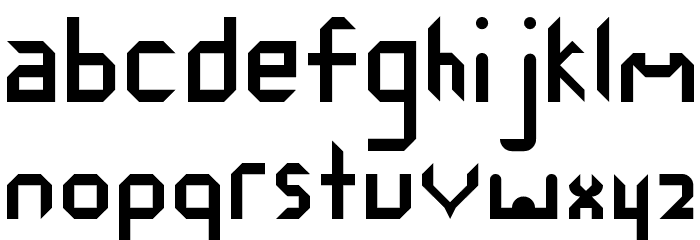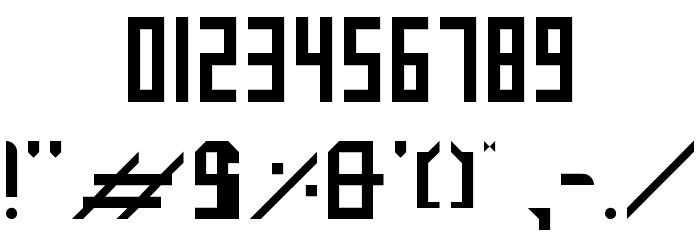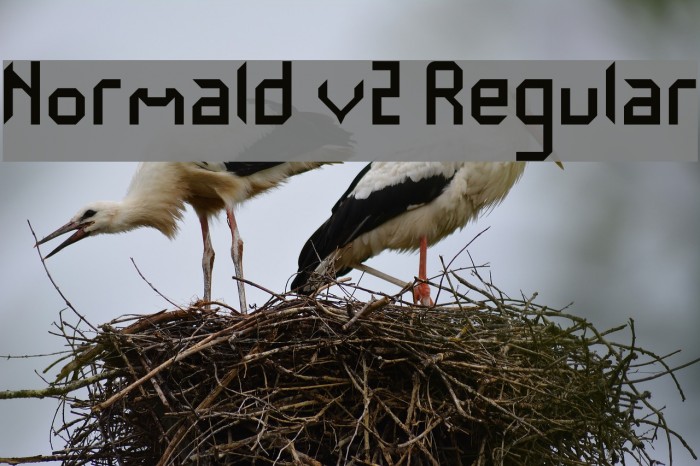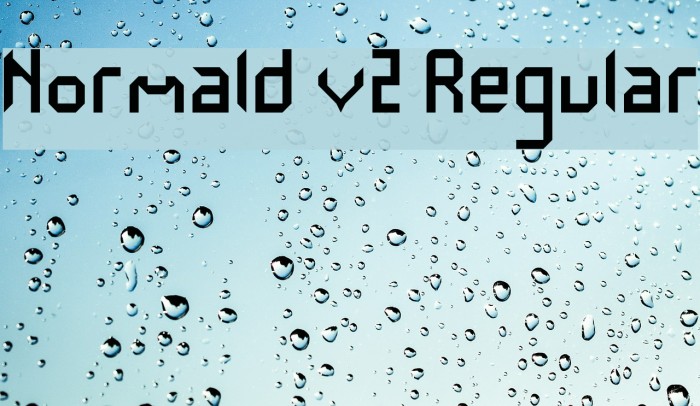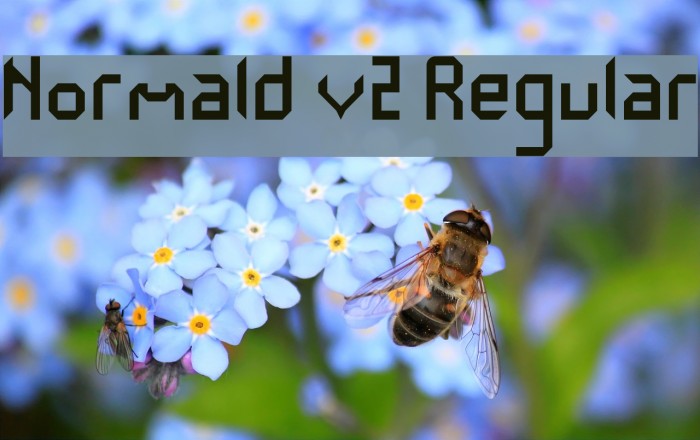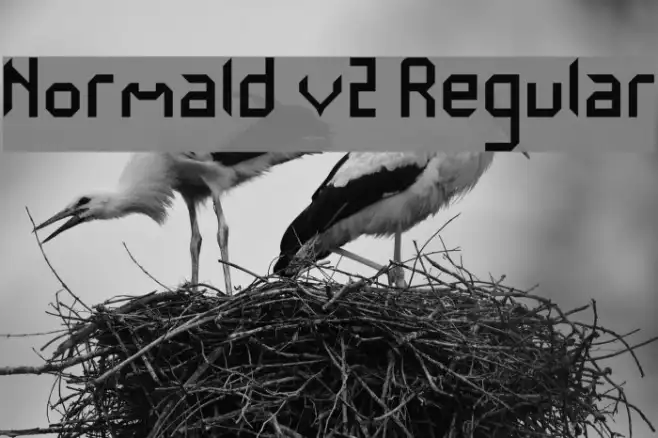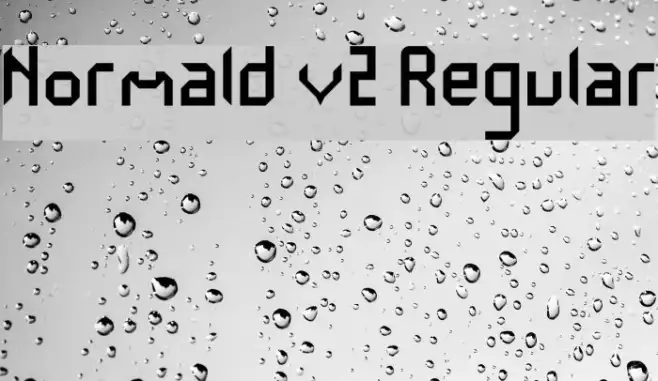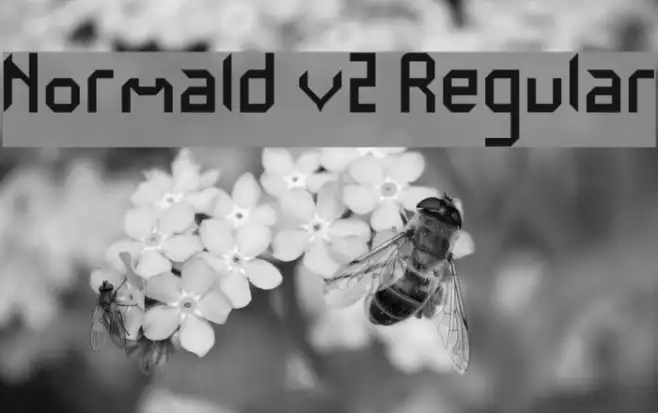
Normald v2 Regular Font
This font features a bold, geometric design with a modern and futuristic aesthetic. The characters are constructed with sharp angles and straight lines, creating a sense of precision and strength. The uppercase and lowercase letters maintain a consistent style, with the lowercase characters mirroring the angularity of the uppercase. The numerals and special characters follow the same design principles, ensuring uniformity across the font. This font's unique style makes it stand out, offering a distinctive look that is both eye-catching and versatile.
A bold, geometric font with a modern, angular design.
- Proposed Projects: Ideal for branding, posters, video game graphics, and tech-related projects.